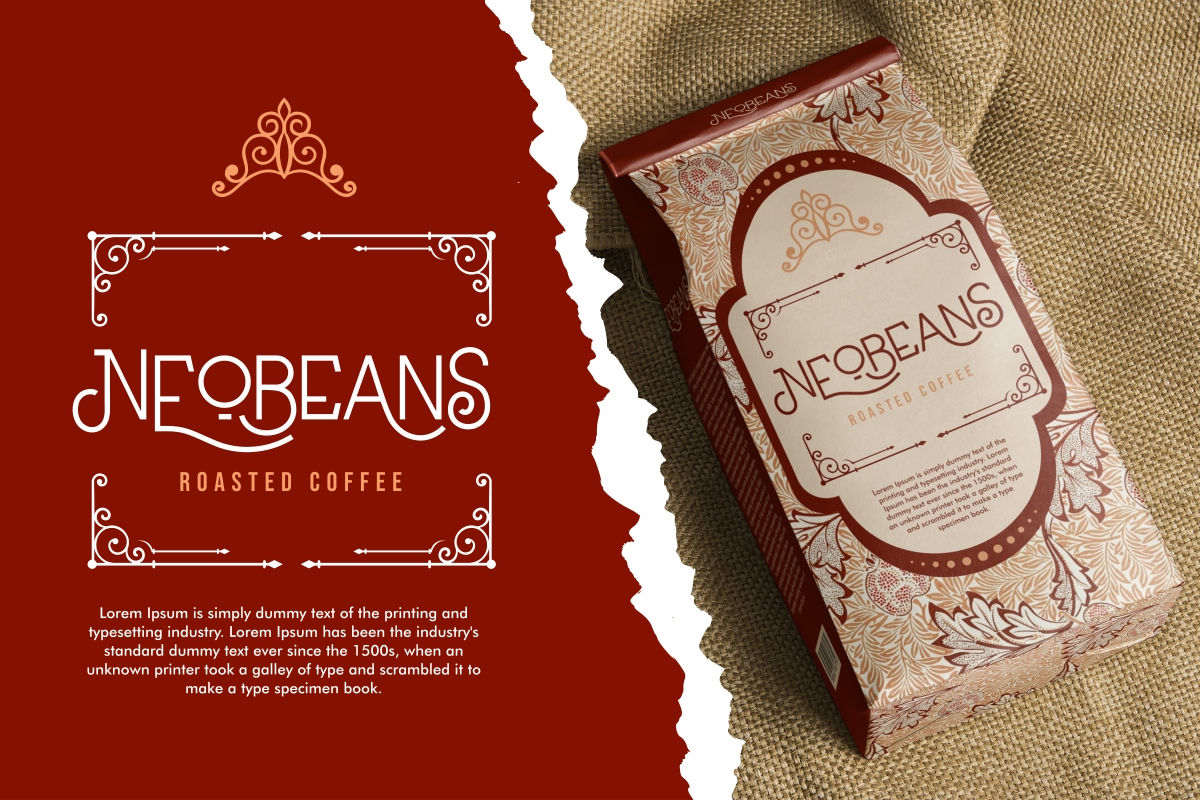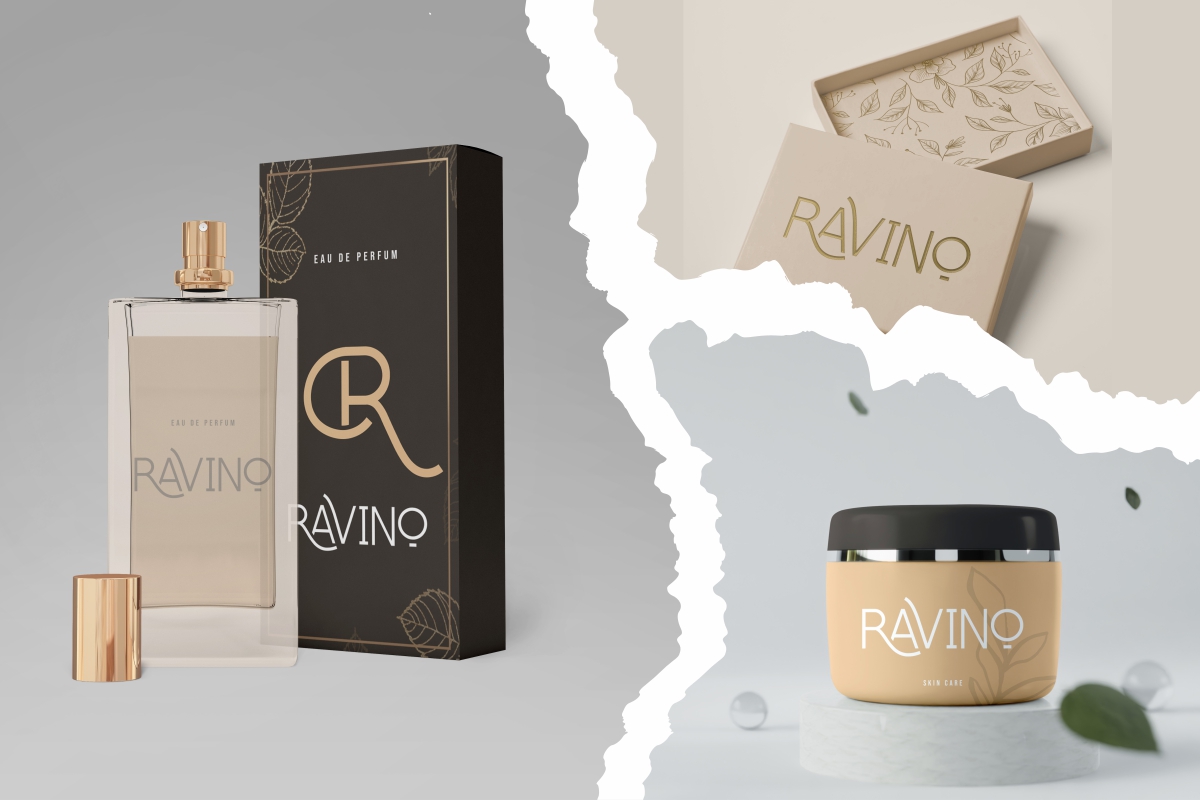
Bardstown Font
Bardstown Sans Serif Font
It’s a simple and unique royal font display with classic & vintage feel will make a great addition to many projects like crafts, print materials, sign, title, product designs. This font is ready whenever anyone brings it!
This font includes full set of ALL CAPS for Uppercase and Lowercase Basic Characters with different size, Numerals and Punctuation. Bardstown Font comes with amazing alternate characters ready to amaze you.